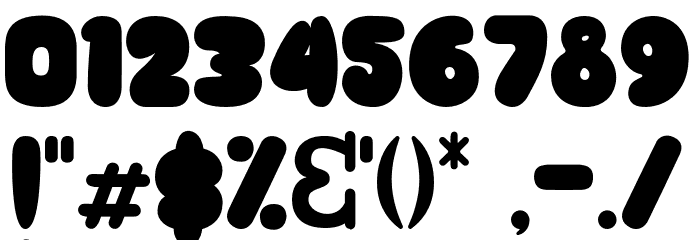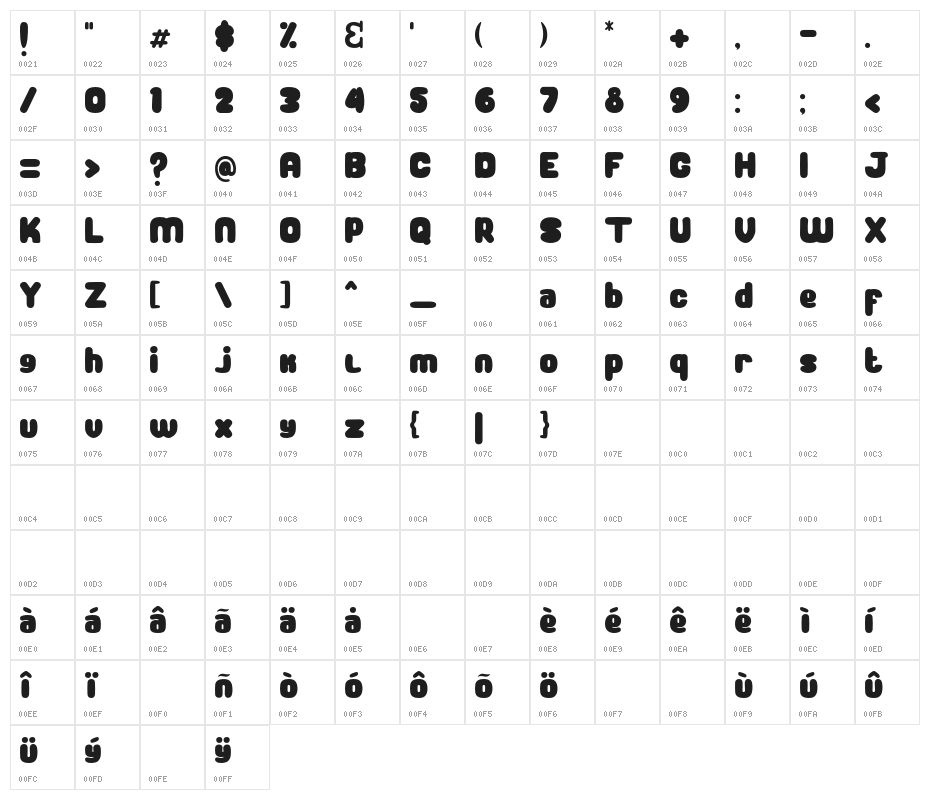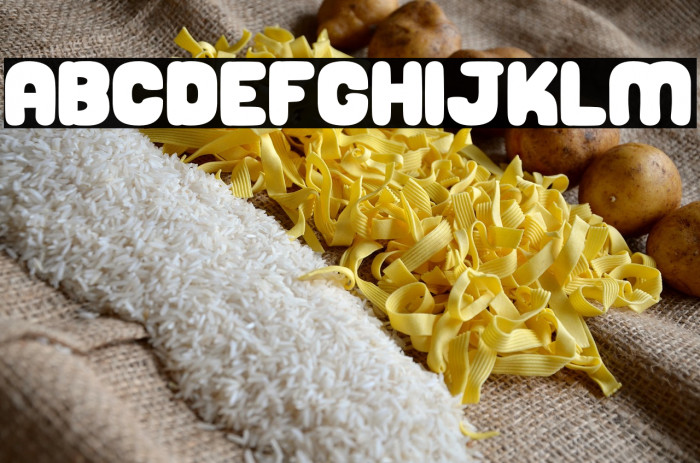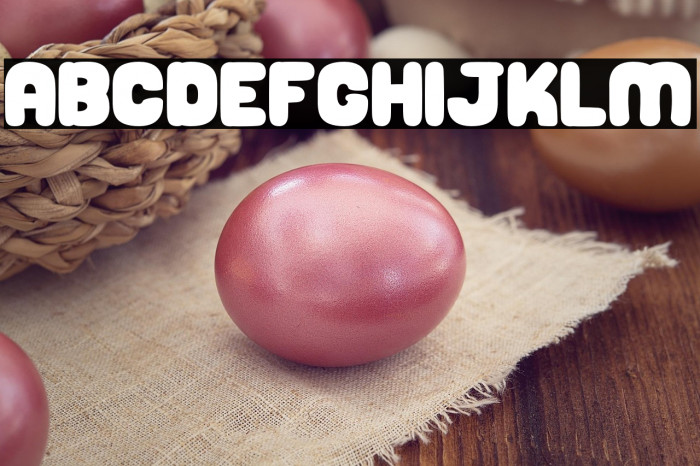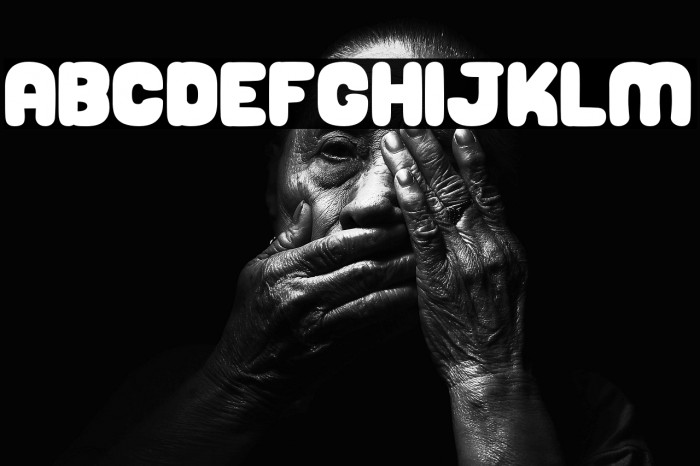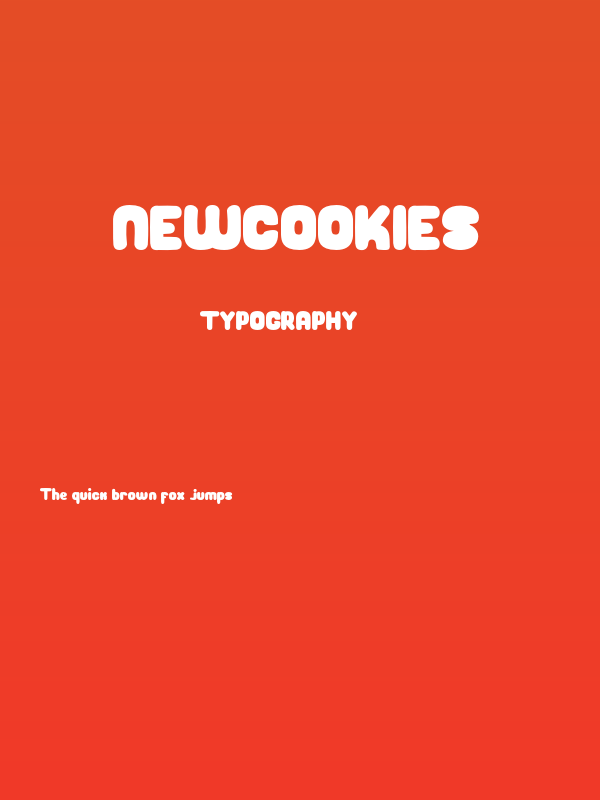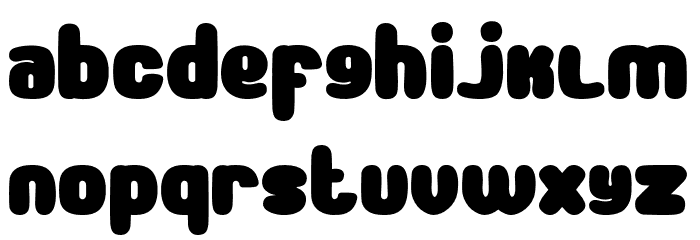
Newcookies Font
Newcookies Description
This playful and bold font features rounded, bubble-like characters that convey a sense of fun and whimsy. The letters are thick and uniform, with a consistent stroke width that gives them a solid, substantial appearance. The rounded edges and soft curves create a friendly and approachable aesthetic, making it ideal for designs that aim to be inviting and cheerful. The font includes both uppercase and lowercase letters, numerals, and a variety of special characters, all maintaining the same playful style. Its unique design makes it stand out, perfect for projects that require a touch of creativity and lightheartedness.
| Proposed Projects | Ideal for children's books, playful branding, party invitations, and creative posters. |